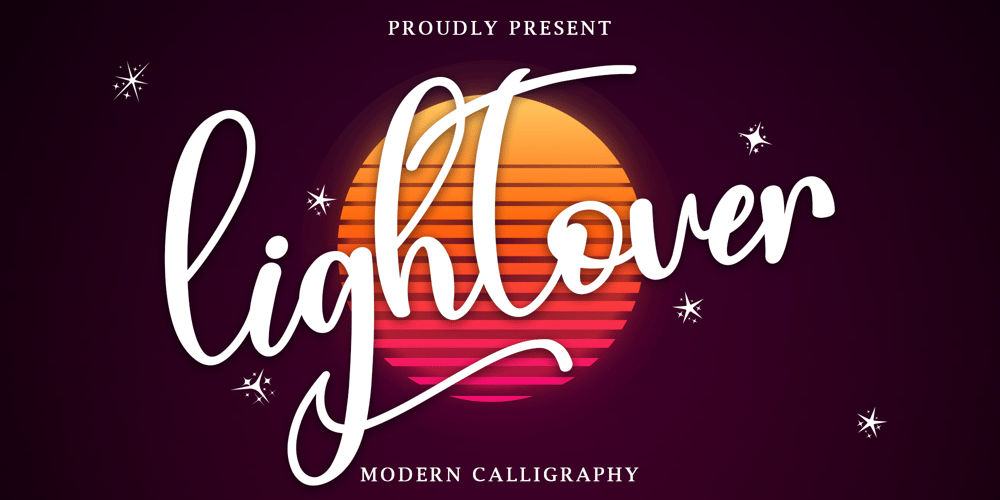
Lightover
Lightover font
Lightover Font Family was designed by Alif Ryan Zulfikar and published by Sakha Design. Lightover contains 2 styles and family package options. Lightover is a modern handwritten font. Lightover will look outstanding in any context, whether it’s being used on busy backgrounds or as a standalone headline! This font is PUA encoded which means you can access all of the glyphs and swashes with ease!